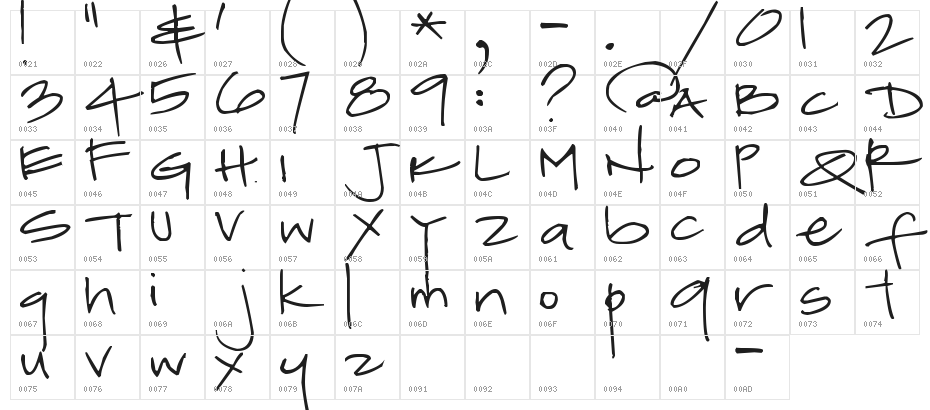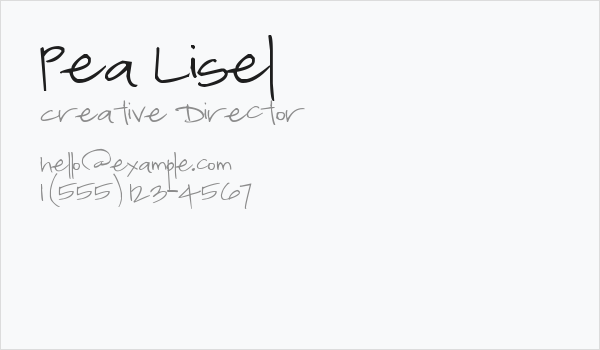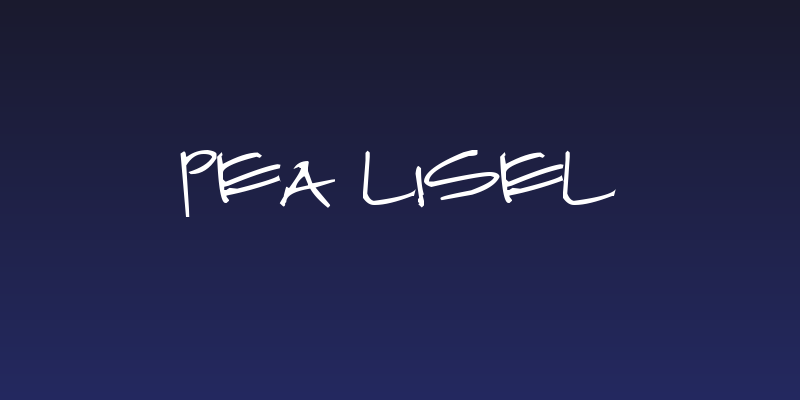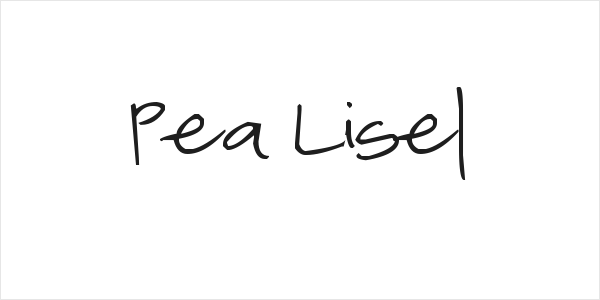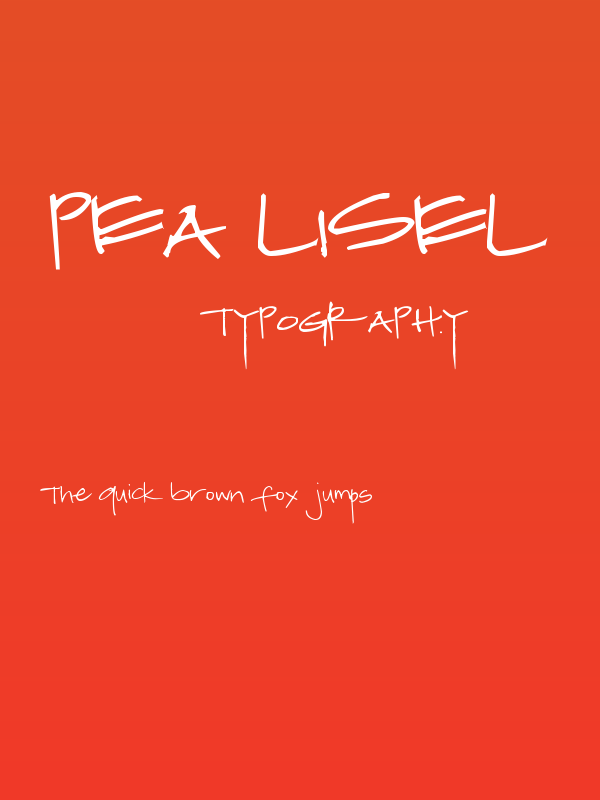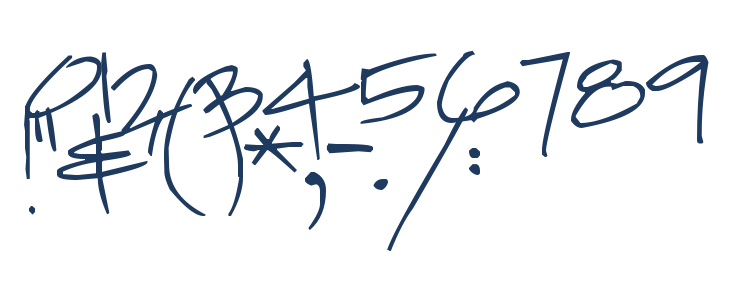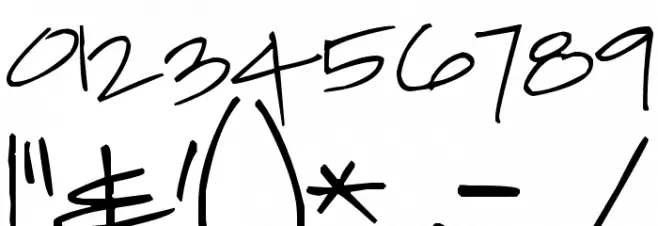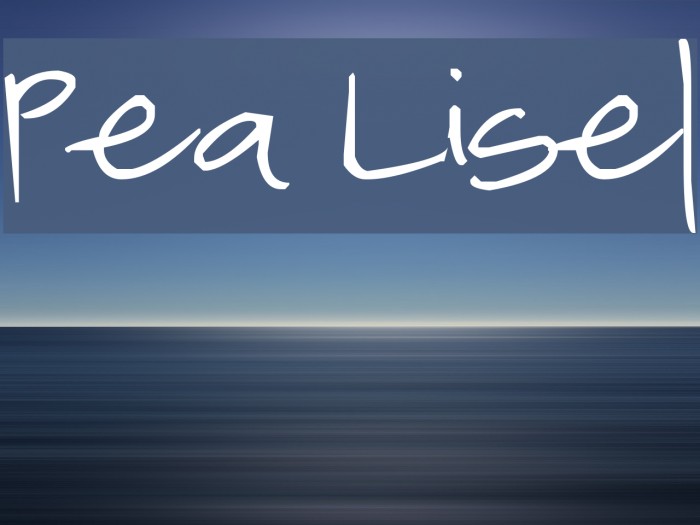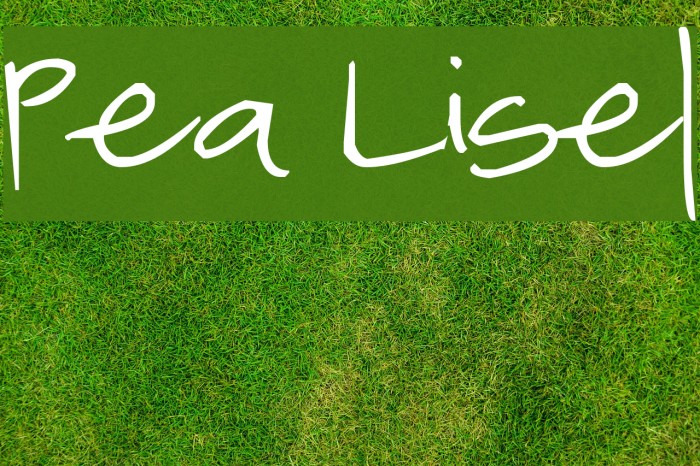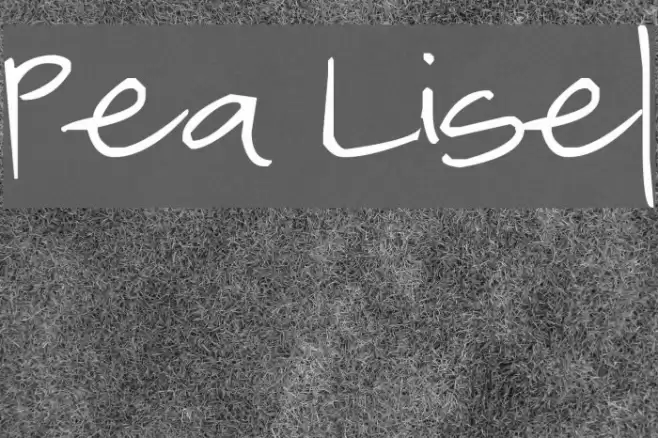
Pea Lisel Font
Pea Lisel Description
This font exhibits a casual and handwritten style, characterized by its free-flowing and slightly irregular strokes. The letters have a playful and informal appearance, with varying line thickness that adds a dynamic and lively feel. The uppercase and lowercase letters maintain a consistent style, with rounded edges and a slight slant that suggests a personal touch. The numerals and special characters follow the same aesthetic, ensuring a cohesive look across all elements. This font is ideal for projects that require a personal, approachable, and friendly tone.
| Use Case | Logos, Invitations, Greeting cards |
| Proposed Projects | Ideal for personal notes, invitations, greeting cards, and informal branding. |